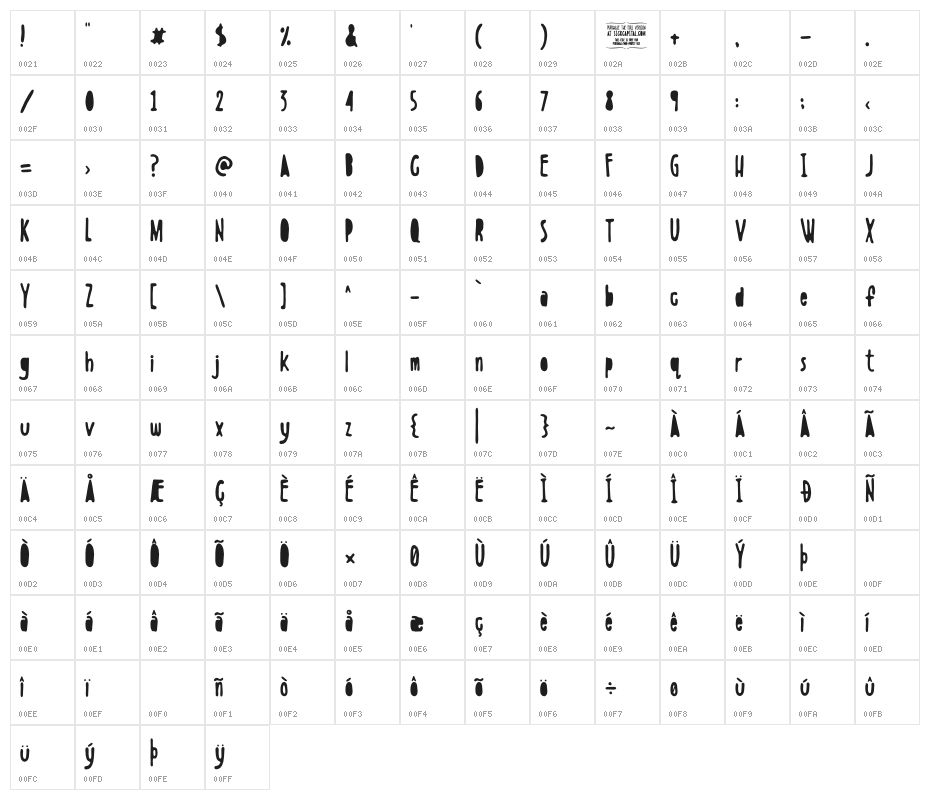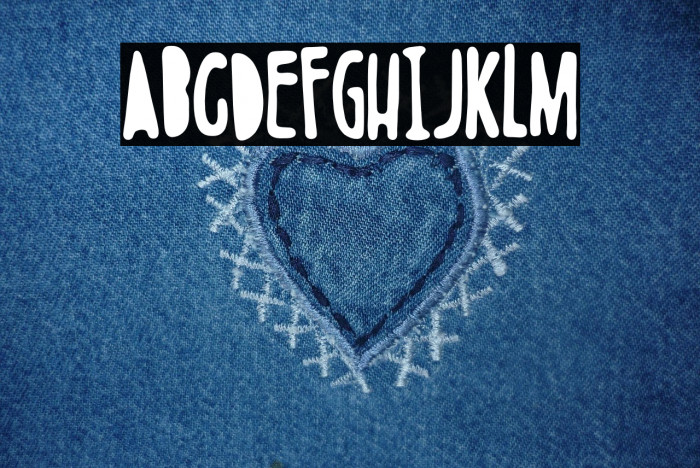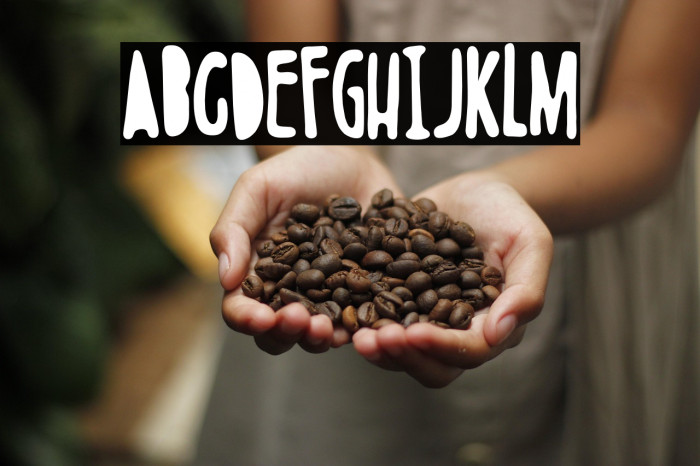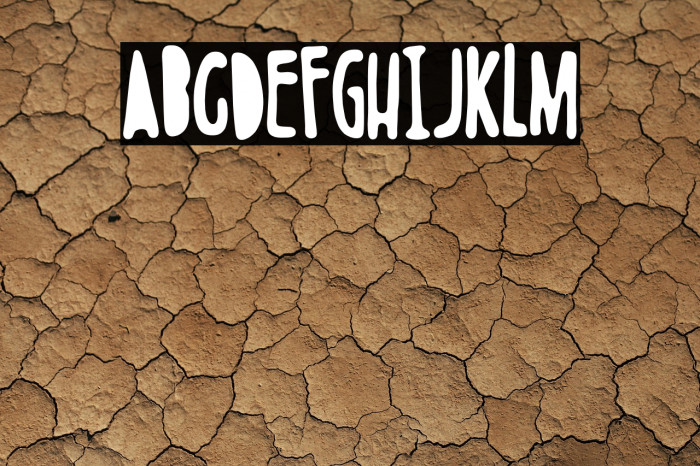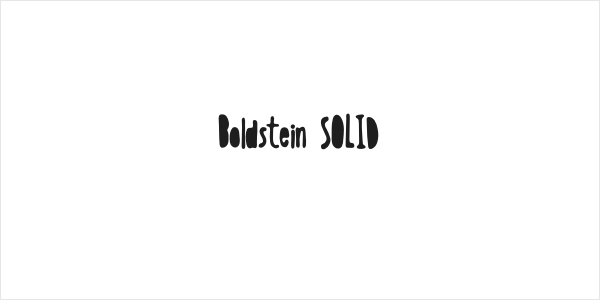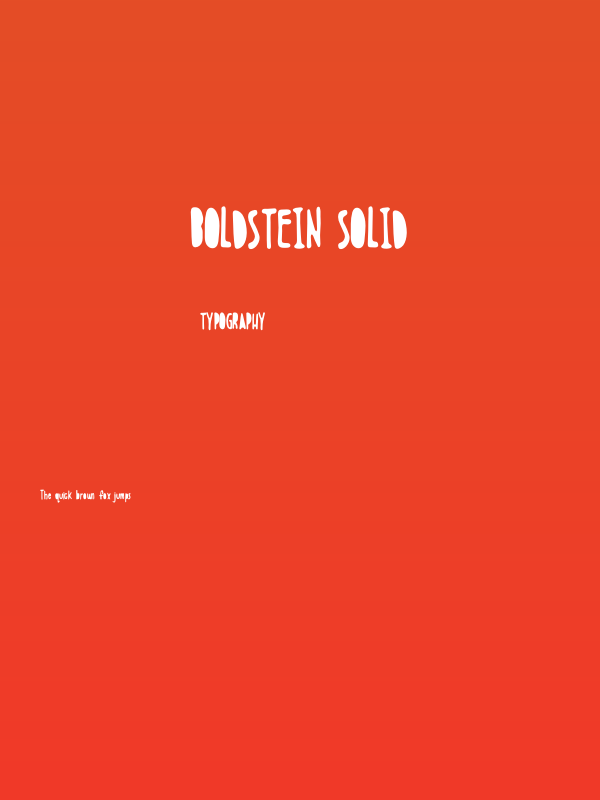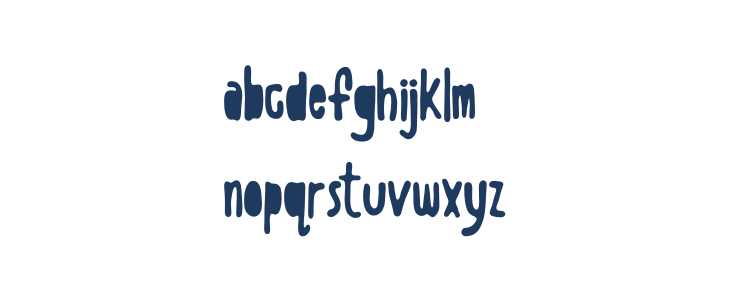
Boldstein SOLID Font
Boldstein SOLID Description
This font features a bold and playful design with a hand-drawn aesthetic. The characters are thick and rounded, giving them a friendly and approachable look. The uppercase and lowercase letters maintain a consistent style, with slight variations that add to the organic feel. The numbers and special characters are equally bold, ensuring readability and visual impact. This font is ideal for projects that require a fun and informal touch, such as children's books, posters, or creative branding.
| Overall Style | Playful, Hand-drawn |
| Proposed Projects | Ideal for children's books, playful posters, creative branding, and informal designs. |